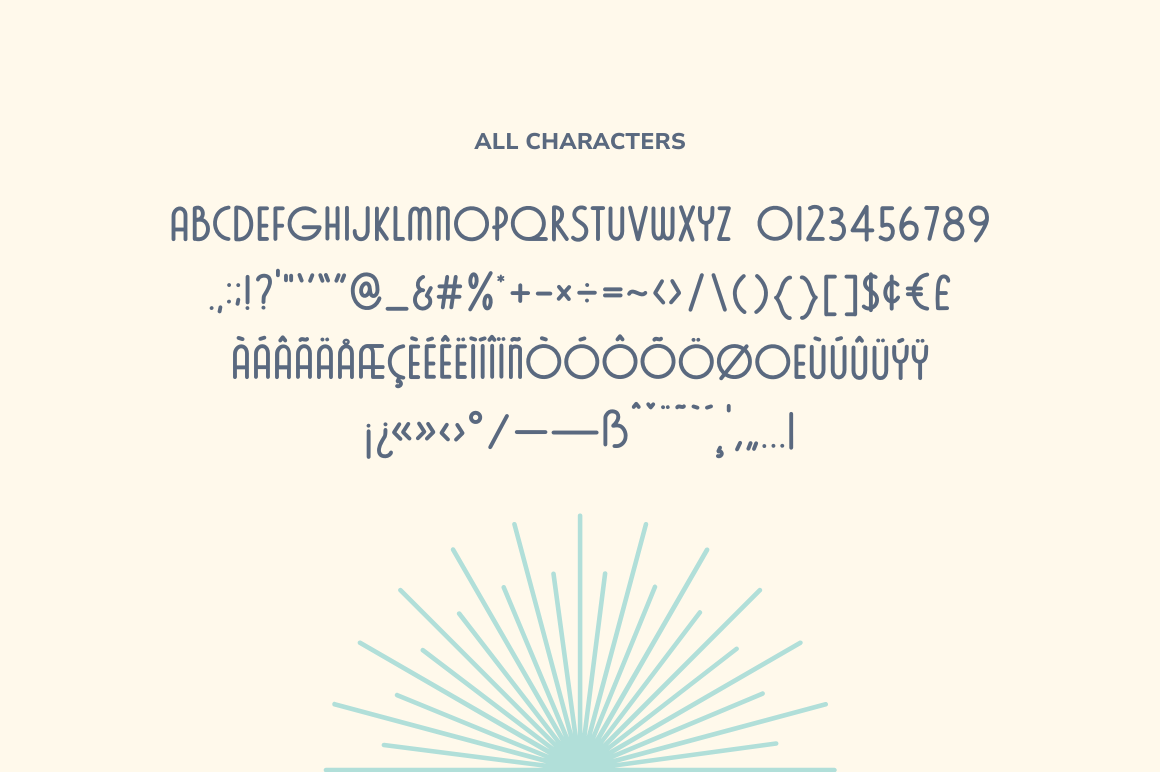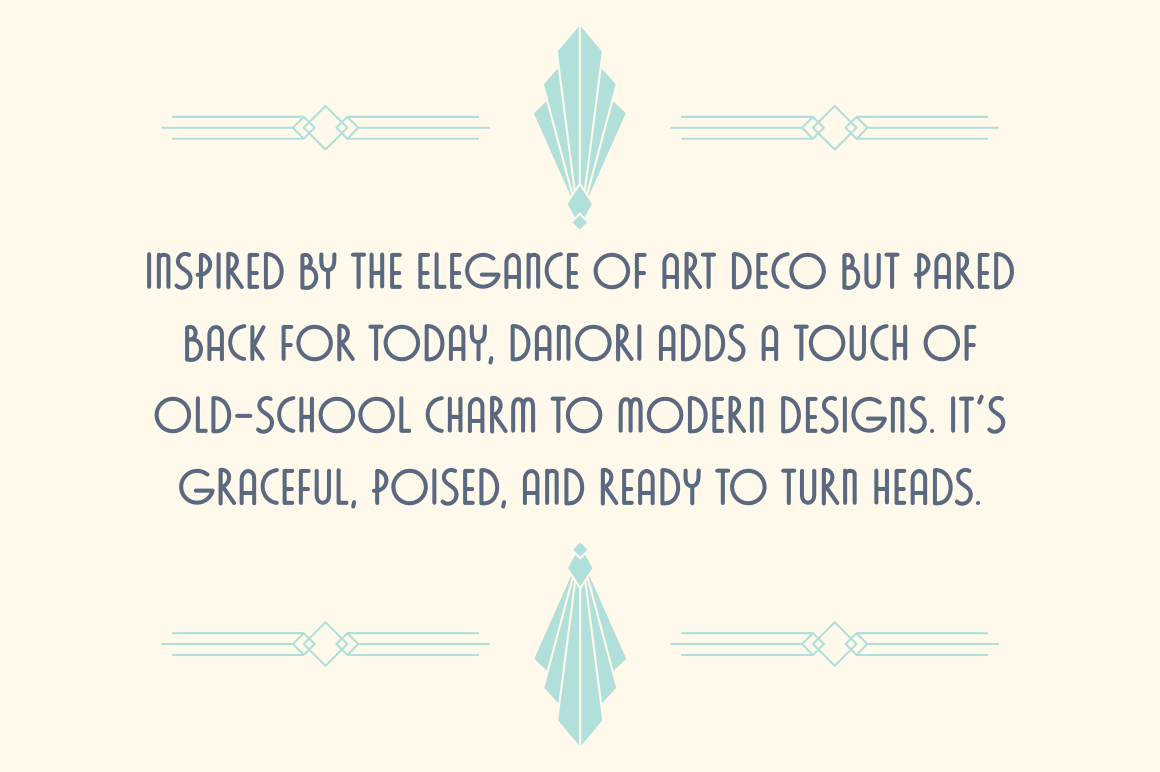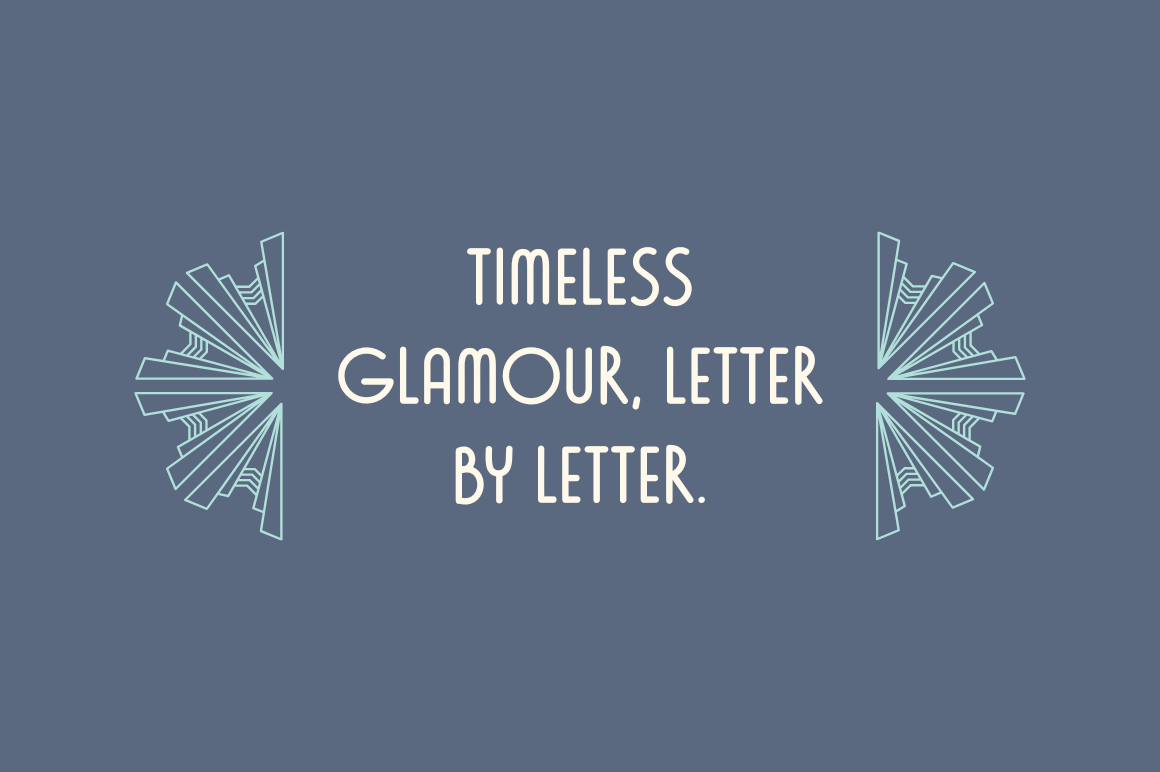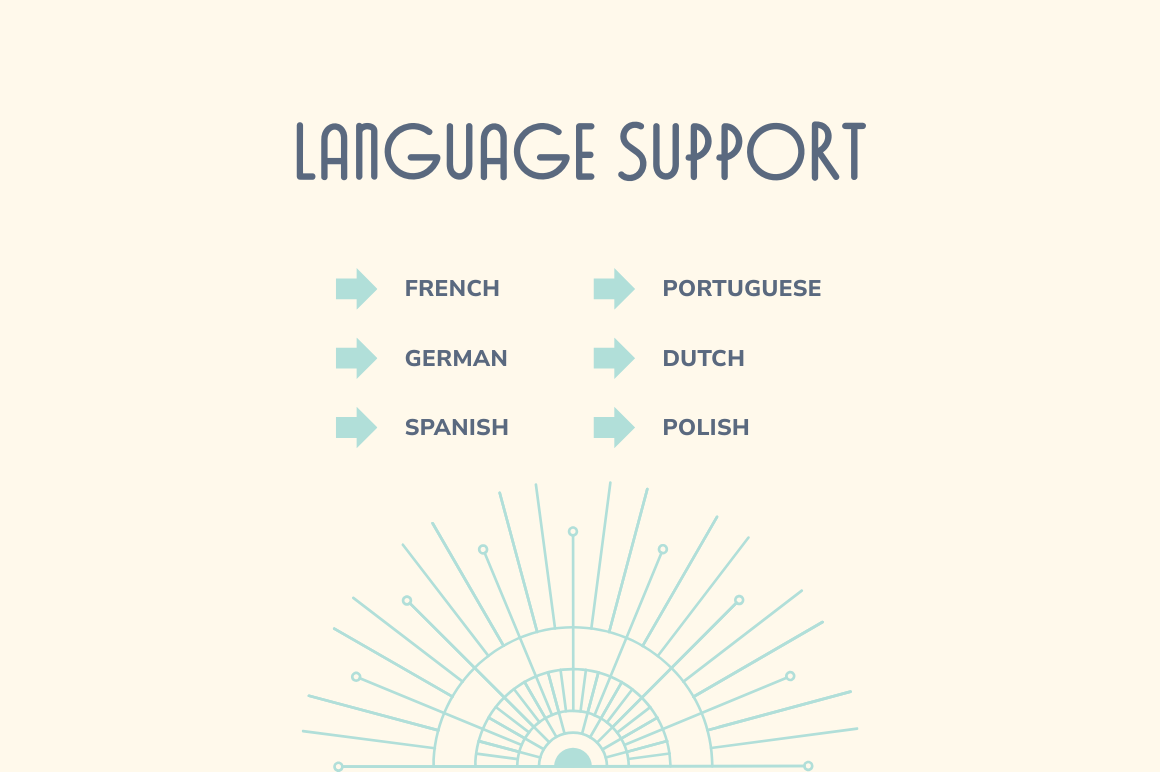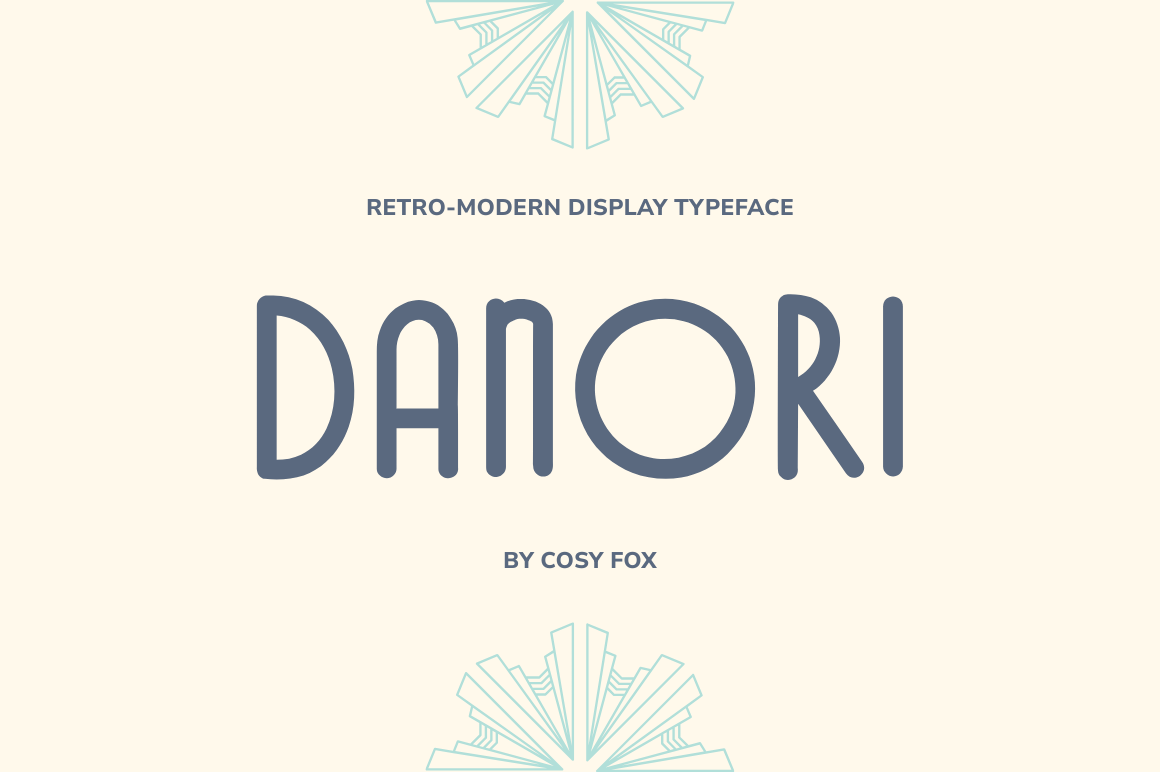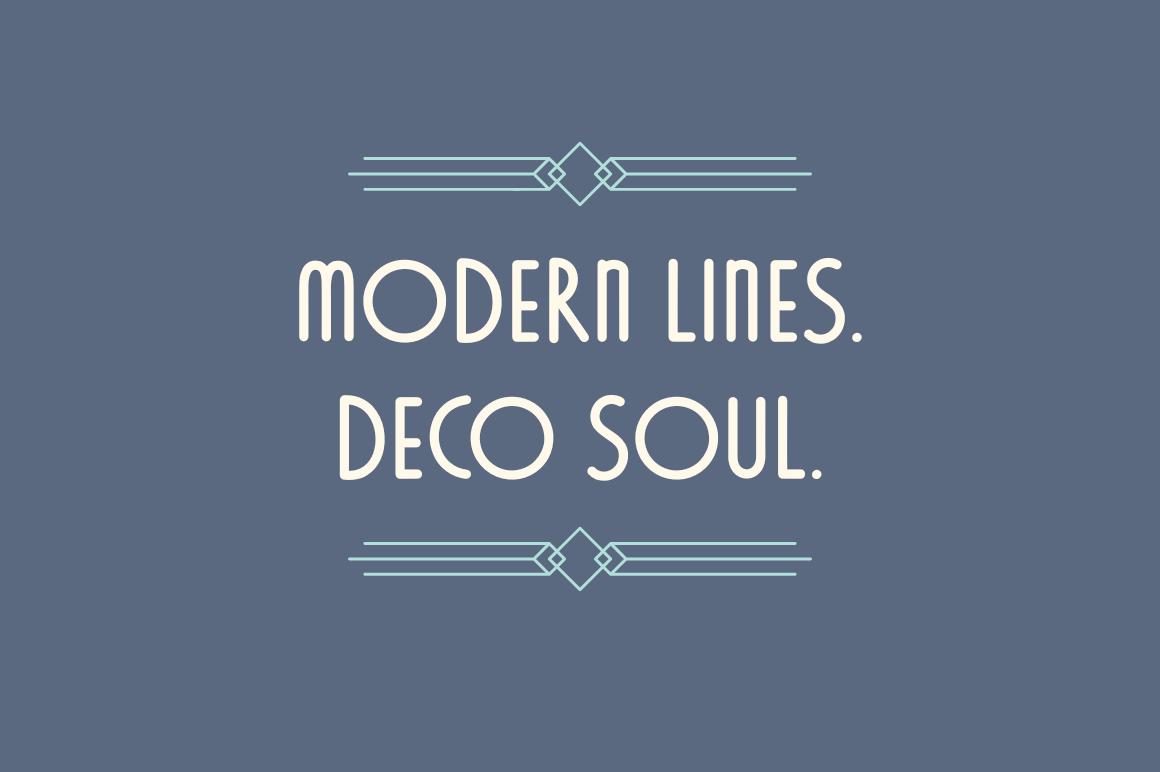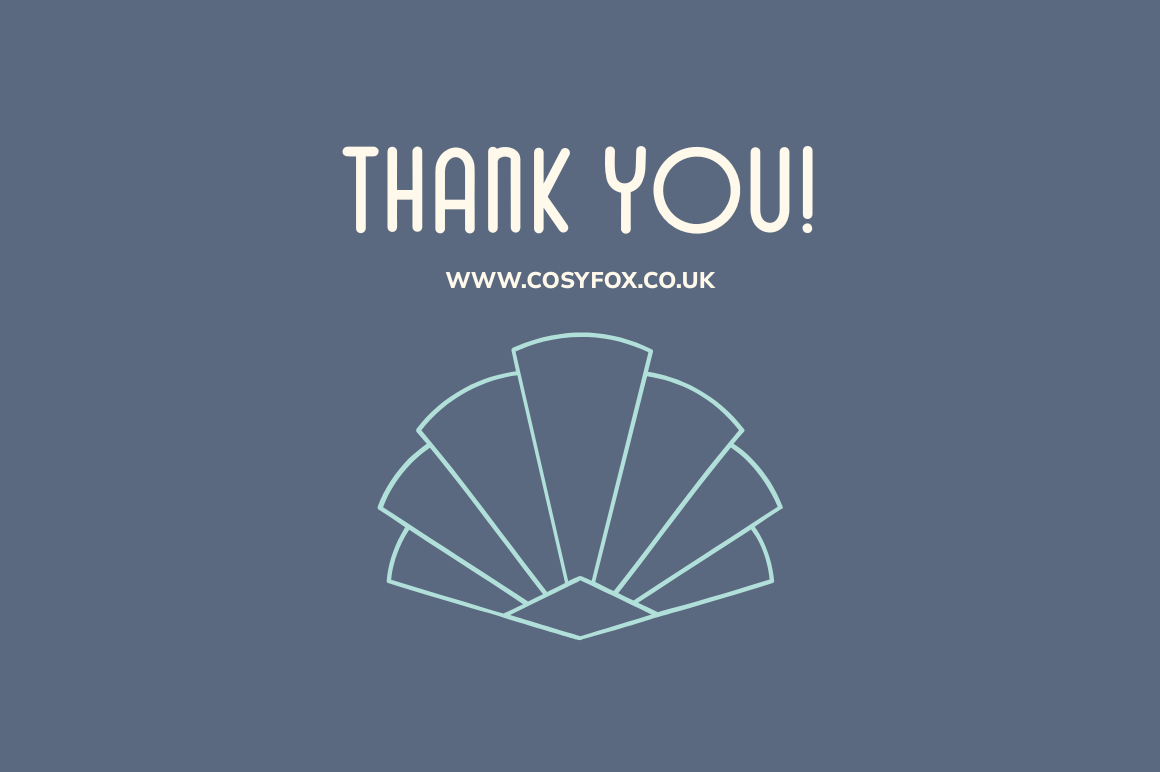
Danori Sans Serif Retro Font
Danori is a sleek Art Deco-inspired font that brings timeless elegance to modern design. With clean lines, smooth curves, and just a hint of vintage flair, this all-caps display typeface is perfect for logos, luxury branding, signage, and editorial layouts that need a touch of sophistication. Danori balances retro charm with minimal simplicity, making it a versatile choice for creatives looking to evoke both nostalgia and polish. Fully compatible with Canva, Procreate, and your favourite design software. Language Support: French, German, Spanish, Italian and Portuguese. What You Get: Danori .OTF font file, How to Install PDF. Thank You! www.cosyfox.co.uk